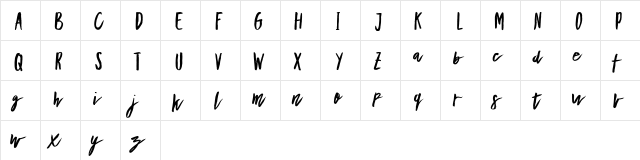
Bottle Massow Demo Regular
| Foundry | MaulanaCreative |
| Designer | MaulanaCreative |
Design Context for Bottle Massow Demo Typeface
Bottle Massow Demo is a composed and adaptable typeface that performs quietly and consistently across a wide range of design contexts.